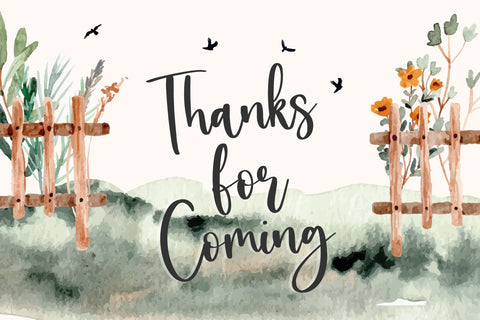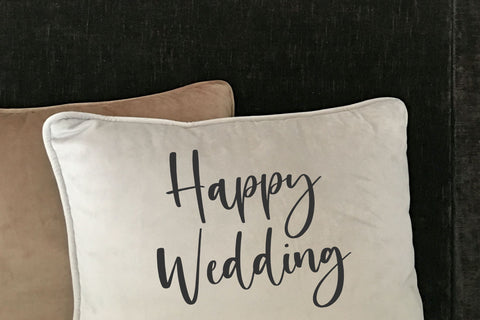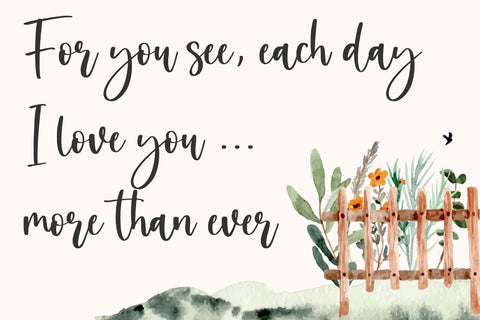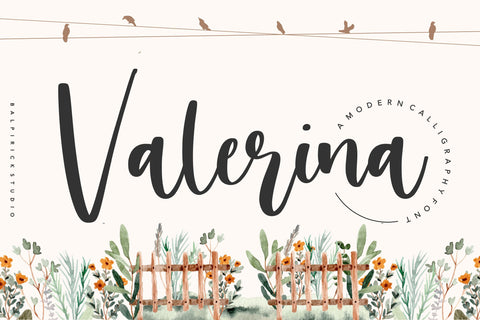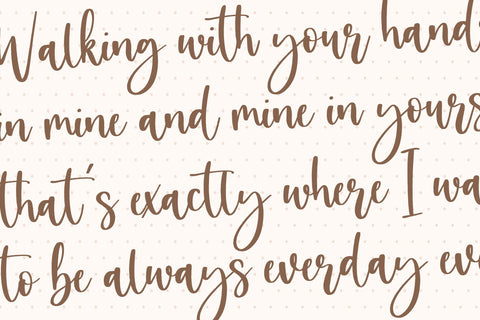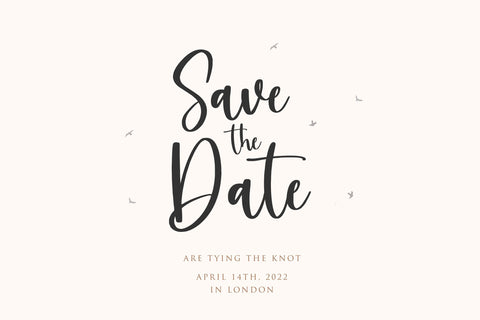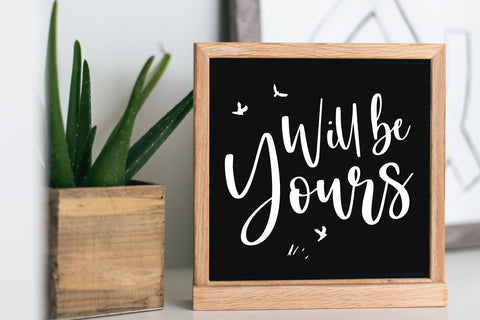
Valerina modern calligraphy font
Proudly Present, Valerina Font.
Valerina is a modern calligraphy font.
Valerina is perfect for product packaging, branding project, megazine, social media, wedding, or just used to express words above the background.